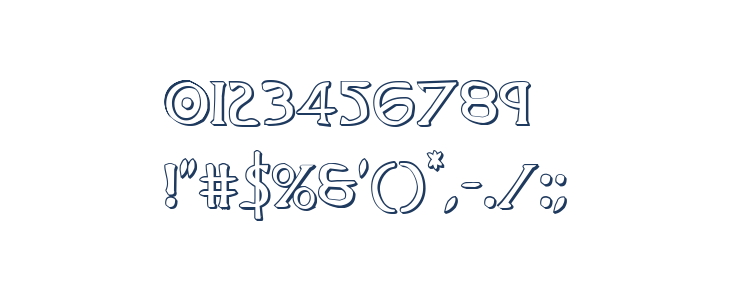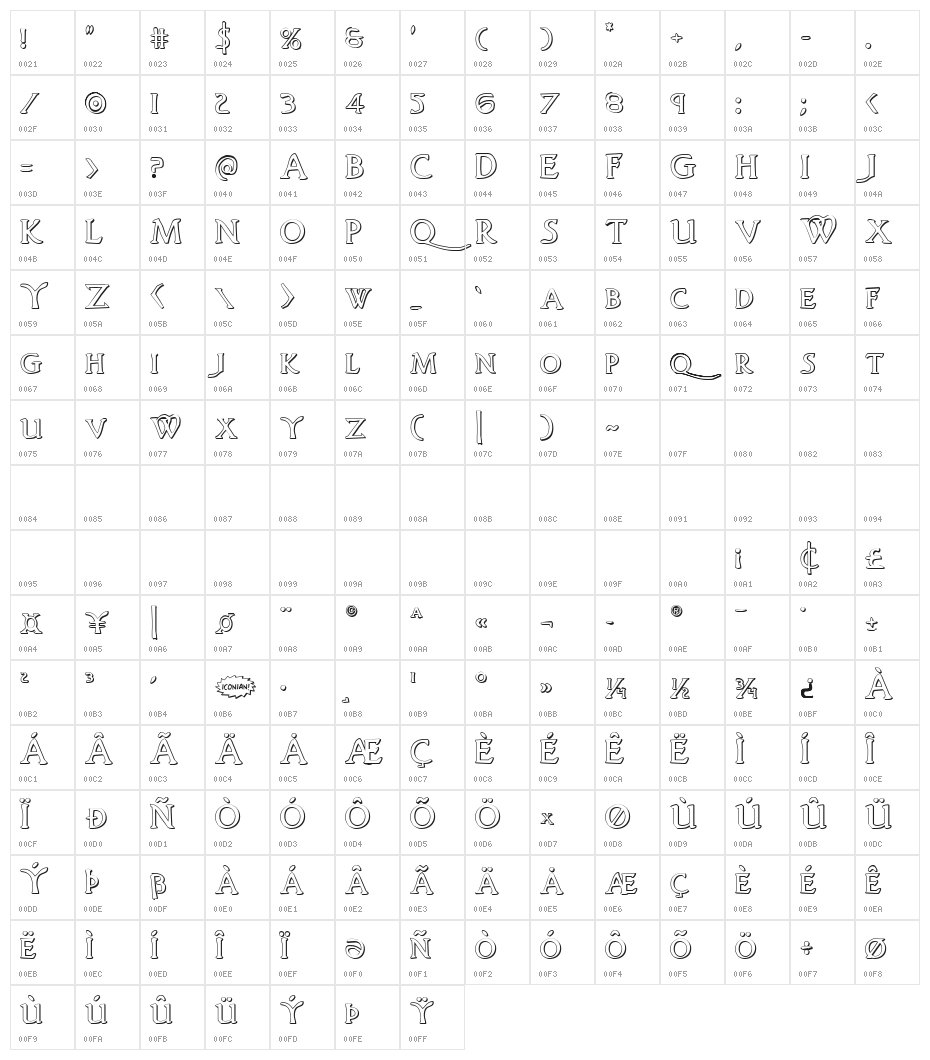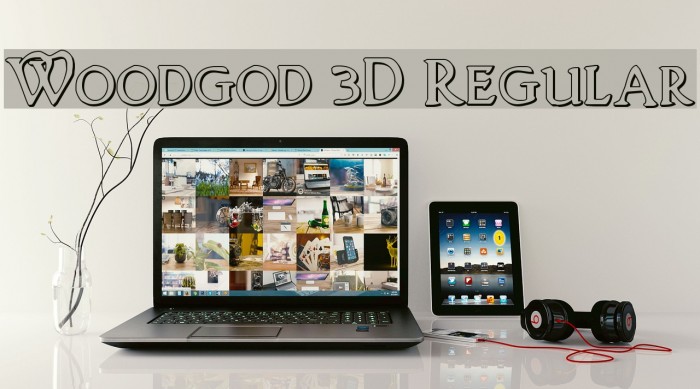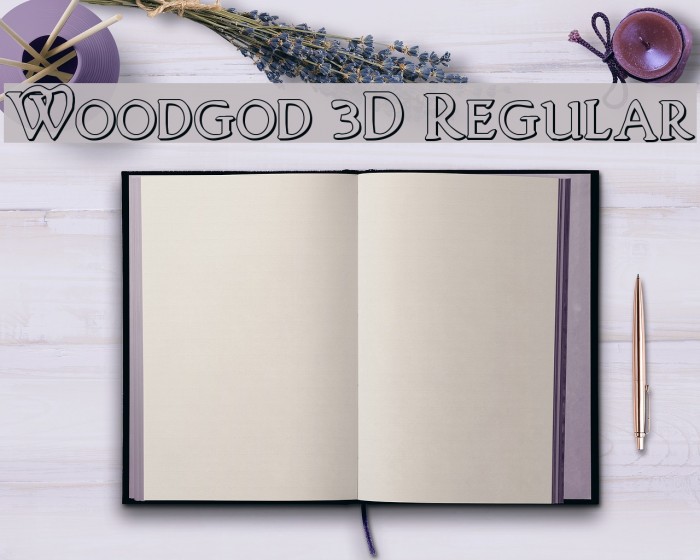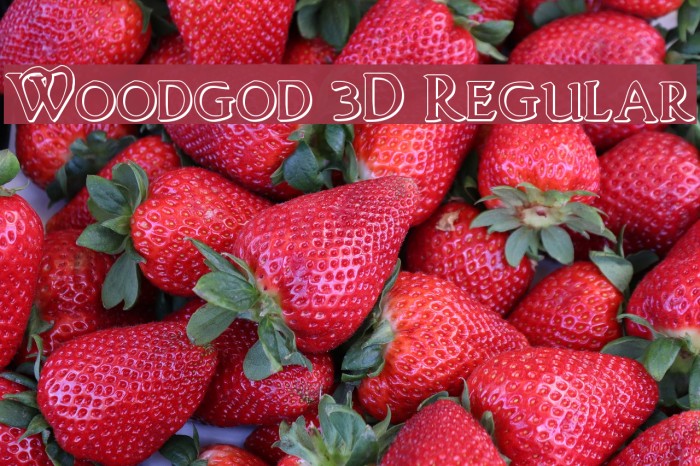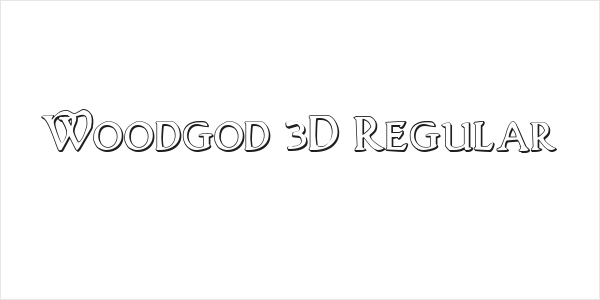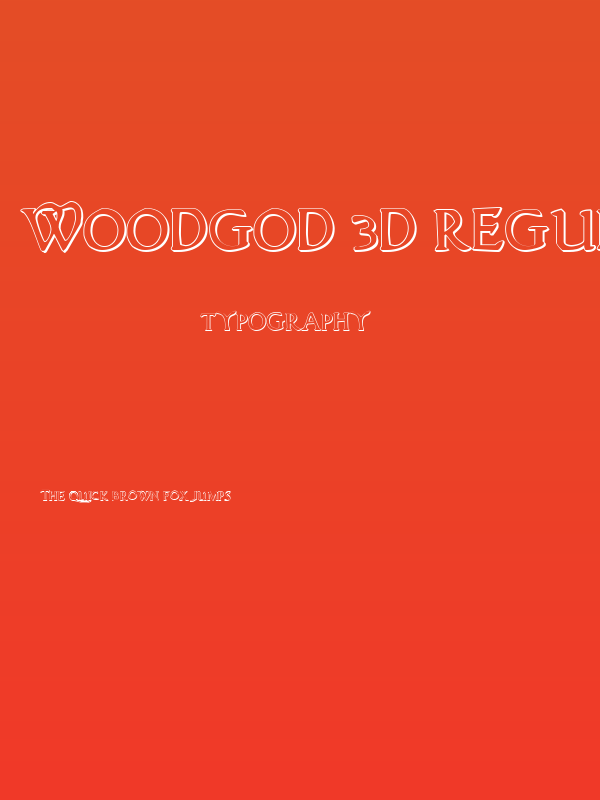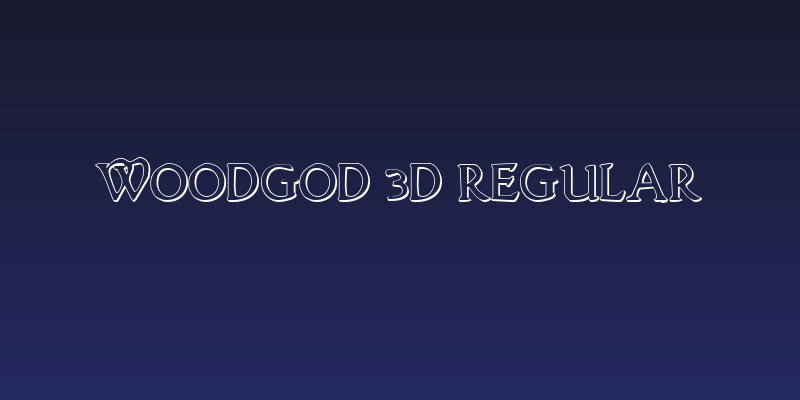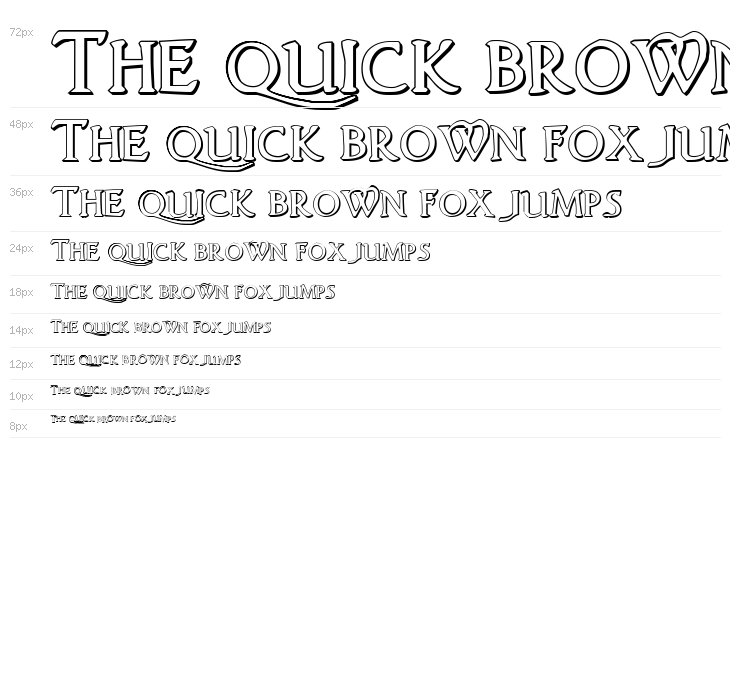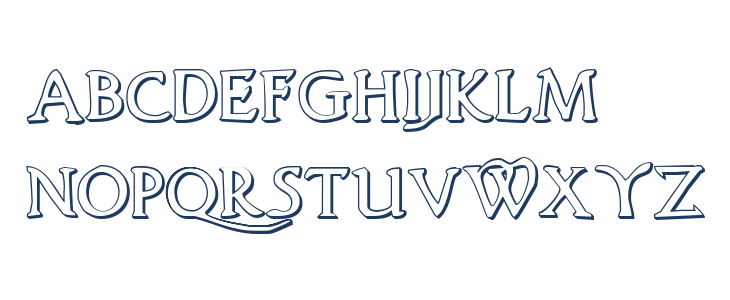
Woodgod 3D Regular Font
Woodgod 3D Regular Description
This font features a bold, three-dimensional appearance with a distinct outline that gives it a carved, sculptural look. The uppercase letters are characterized by sharp serifs and a strong presence, while the lowercase letters maintain the same boldness with slightly more rounded edges. The numbers and special characters follow the same stylistic approach, ensuring consistency across all glyphs. The font's unique style is reminiscent of woodcut or engraved lettering, making it stand out in any design. Its strong visual impact is ideal for projects that require a touch of boldness and creativity.